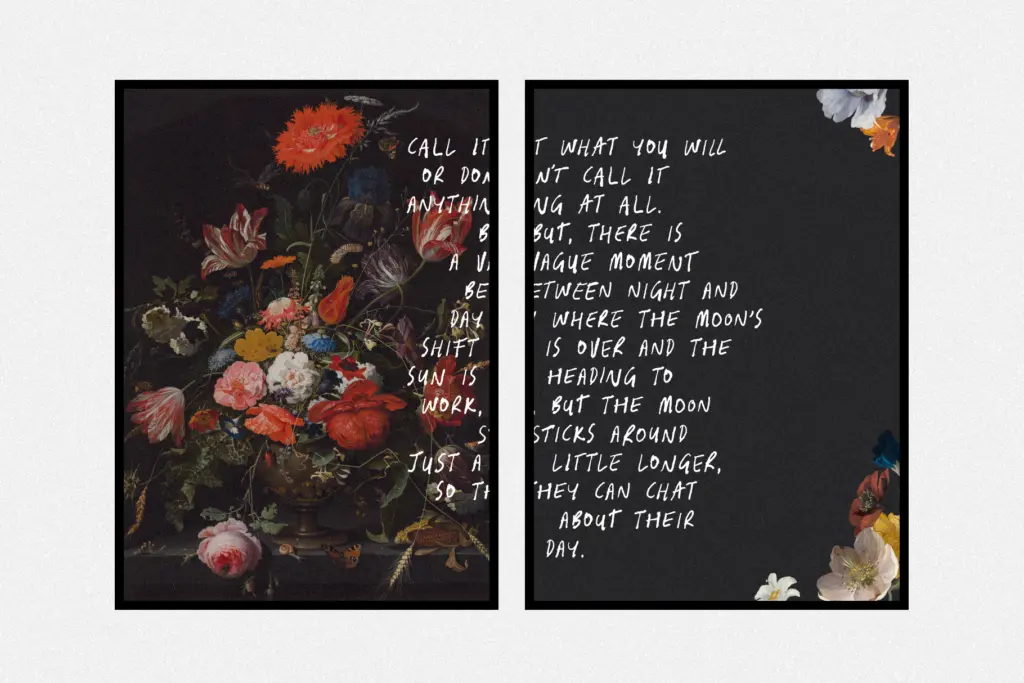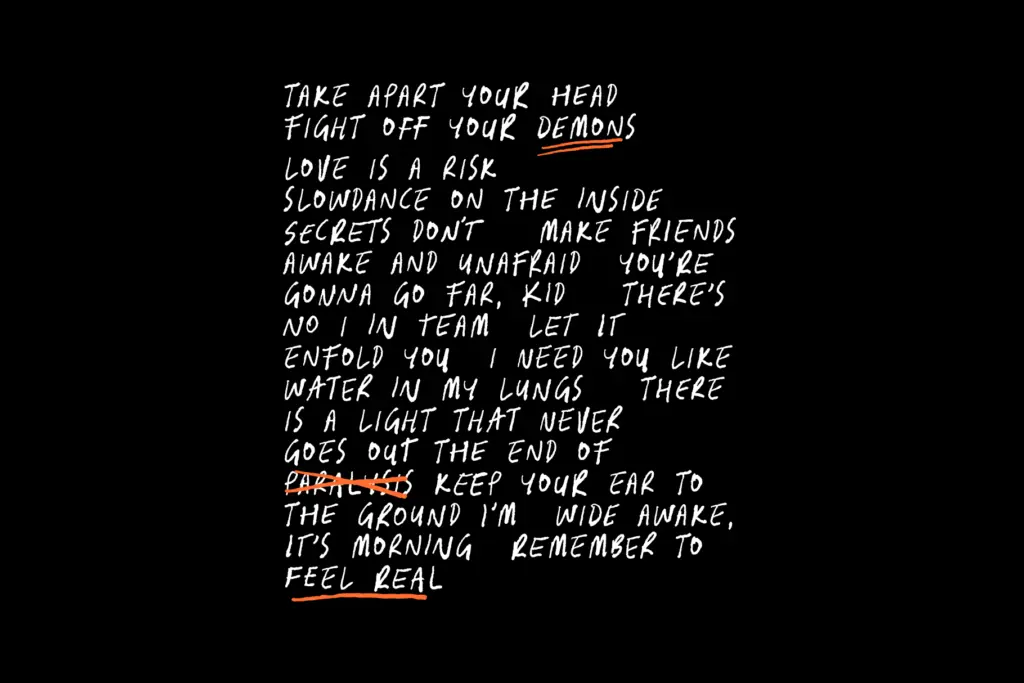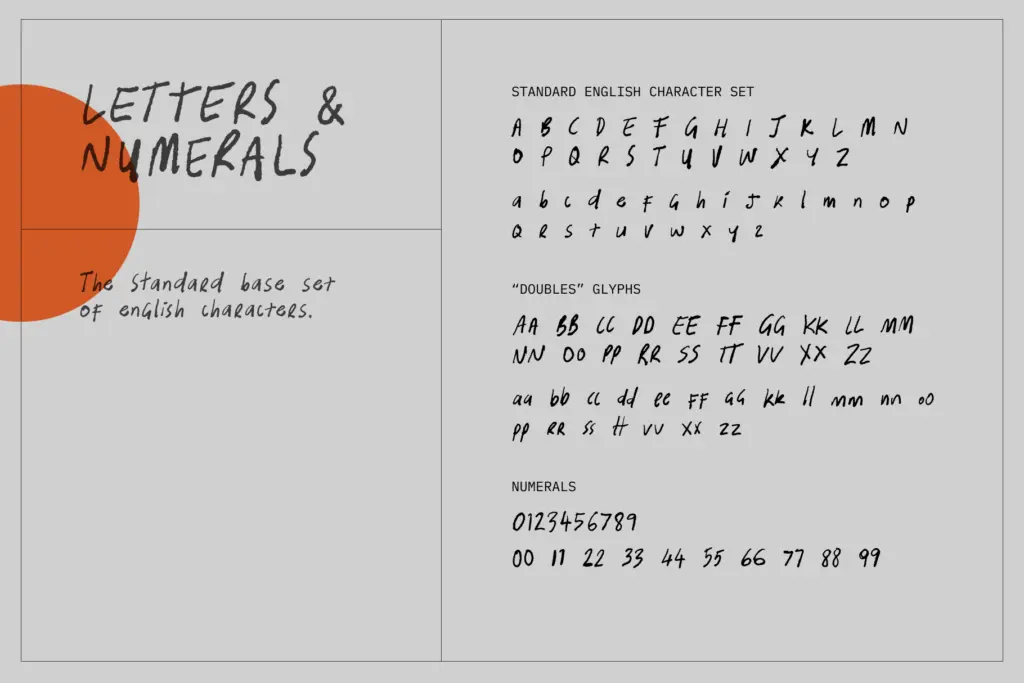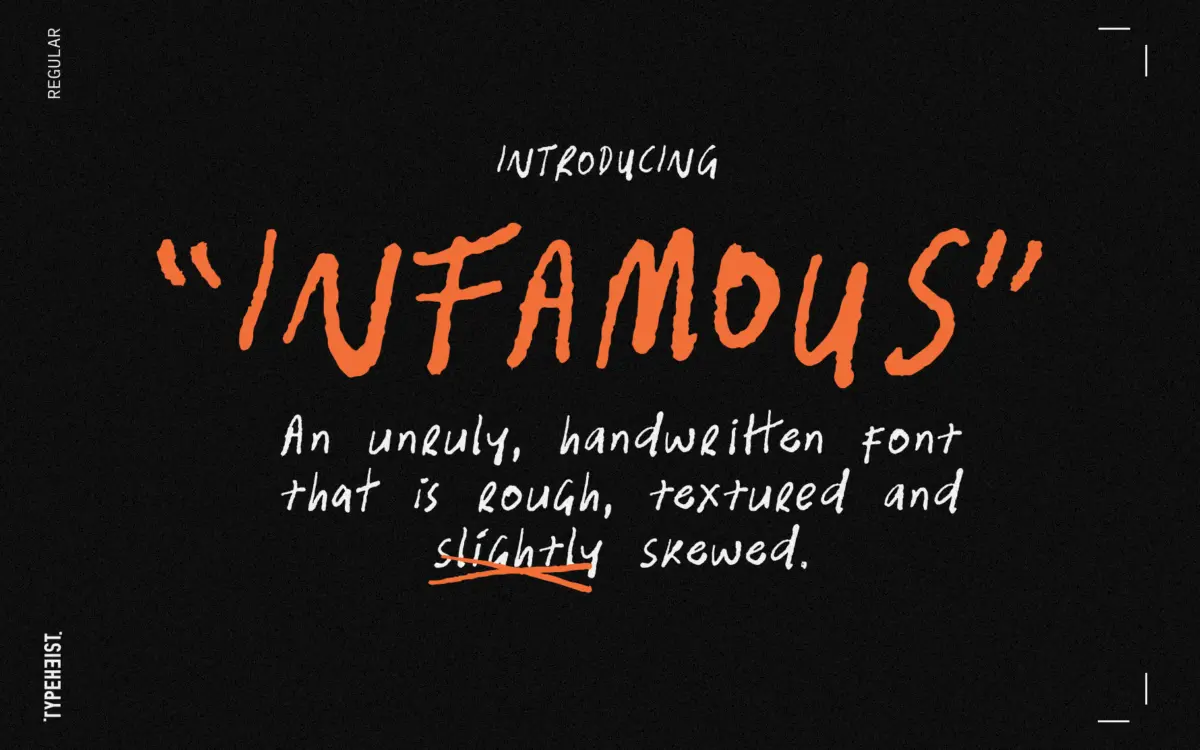
Infamous is handwriting turned up too loud. The strokes wobble, the baseline drifts, and letters lean at inconsistent angles as if written fast on a bad surface. It reads as deliberately unruly rather than sloppy — there’s a texture to the strokes that suggests a dry marker or worn brush pen, and the irregularity feels controlled even when it looks chaotic. This isn’t a font aiming for charm or warmth. It’s aiming for attitude: something scrawled, defiant, a little punk.
The skew is the defining trait. Verticals aren’t vertical, x-heights bounce from letter to letter, and the overall rhythm refuses to settle into a predictable grid. That’s the point, but it also means the typeface asks a lot of the layout around it — quiet space, generous margins, nothing else fighting for attention.
The set runs deep for a handwriting font: over 360 glyphs, including hand-drawn scribble marks accessed through text shortcuts, plus custom ligatures that let certain letter pairs merge into more natural-looking connections. Standard English characters are covered, along with multilingual accented characters across Latin-1 and Extended ranges, so it’s usable beyond a purely English context without falling back to a mismatched fallback font for diacritics.
Uppercase and lowercase behave differently enough that mixing cases produces genuinely different textures — lowercase leans soft and loose, uppercase reads blockier and more aggressive. The seller pitches this mixing as a feature, and it does work, though it means the font rewards someone willing to set type by eye rather than trusting default casing. The scribble extras are a nice touch for adding rough underlines, circles, or emphasis marks without reaching for a second asset, but they’re decorative flourishes, not a substitute for real illustration work.
Infamous belongs in short bursts: a single word on a poster, a stamped-looking logotype, a hand-lettered callout on packaging that wants to look unpolished on purpose. It suits streetwear branding, gig posters, skate and music graphics, anything reaching for a DIY or rebellious tone. It also works well as texture — a scrawled word behind a cleaner headline, adding grit without carrying the message alone.
It is not a body text font, and it shouldn’t be pushed there. At small sizes the irregular baseline and stroke weight variation start to blur letterforms together, making paragraphs genuinely harder to read than a font with more restraint would be. It also struggles in contexts asking for warmth or legibility above all — greeting cards, elegant invitations, anything wanting handwriting to feel personal and readable rather than confrontational. Save it for display use, keep it short, and let it do one loud thing per layout rather than several.
- Deep character set with 360+ glyphs and hand-drawn scribble extras accessed via shortcuts
- Multilingual accented character support beyond basic English
- Distinct rebellious texture that suits streetwear, music, and packaging branding
- Irregular baseline and skew make it unreadable at body text sizes
- Requires a quiet, uncluttered layout to avoid visual noise
Infamous is a confident, gritty handwriting font built for short, loud statements rather than sustained reading. It has real personality and a deep glyph set, but its irregularity limits it strictly to display use. Buy it for headlines and logotypes, not paragraphs.